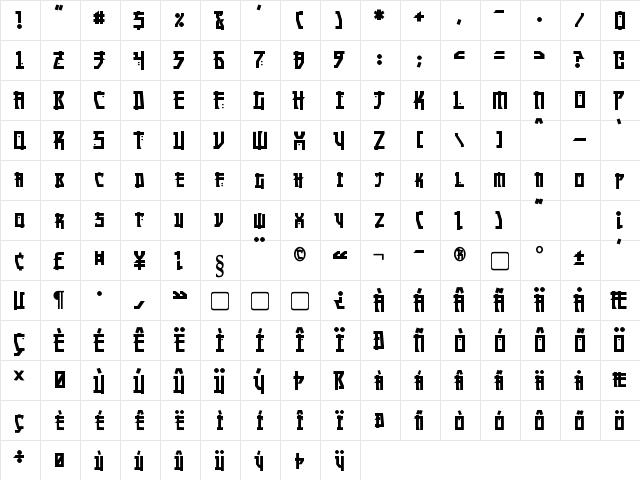
Manga Bold
Bold · Pixel Sagas Neale Davidson ·
Design Context for Manga Typeface
Manga is a composed and adaptable typeface that performs quietly and consistently across a wide range of design contexts. The heavy weight commands attention and anchors typographic hierarchies.